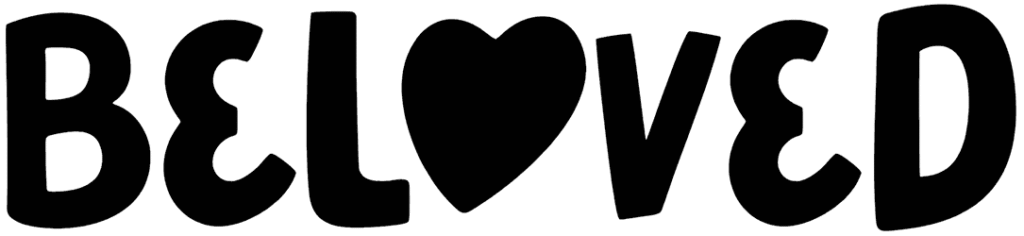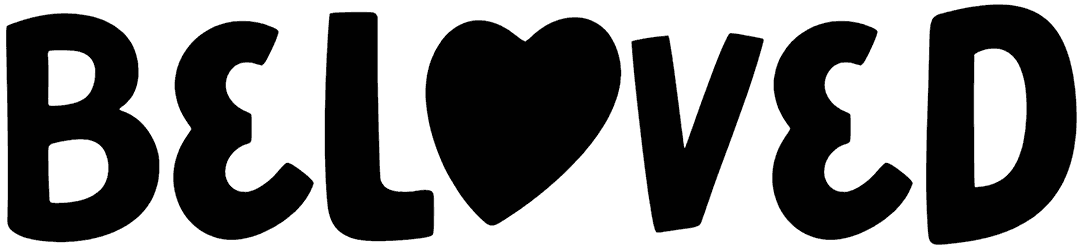
Beloved Font
While standing out alongside thousands of content is getting more challenging every day, by using Beloved, you can captivate the viewers’ attention with your posters, book covers, digital banners, educational brochures,…
While standing out alongside thousands of content is getting more challenging every day, by using Beloved, you can captivate the viewers’ attention with your posters, book covers, digital banners, educational brochures, and menus like a piece of cake.
This heart font offers two distinctive versions of uppercase letters, so it easily makes up for the lack of lowercase letters. Due to its childish design, it carries a sense of love, happiness, and vivacity.